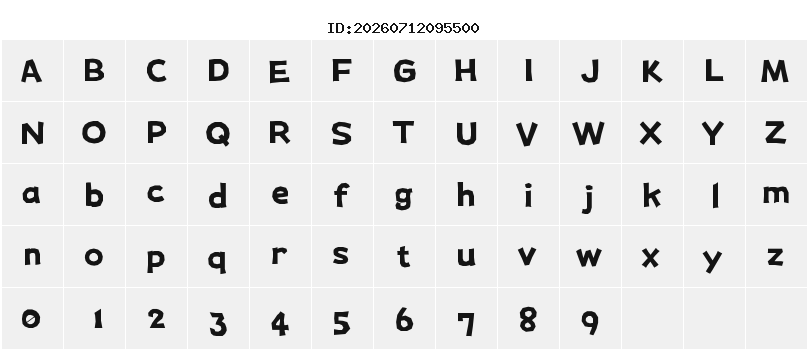
猫啃什锦黑-轻量版 Preview
• Font Name: 猫啃什锦黑-轻量版
• Font Style: 常规
• Font ID: MaokenAssortedSans-Lite:Version 1.62
• Full Font Name: 猫啃什锦黑-轻量版
• Version: Version 1.62
• PostScript Name: MaokenAssortedSansLite
About 猫啃什锦黑-轻量版.ttf
猫啃什锦黑-轻量版.ttf is a modern, elegant sans-serif font designed for ultimate readability and visual harmony. Perfect for branding, headlines, web design, and print materials.